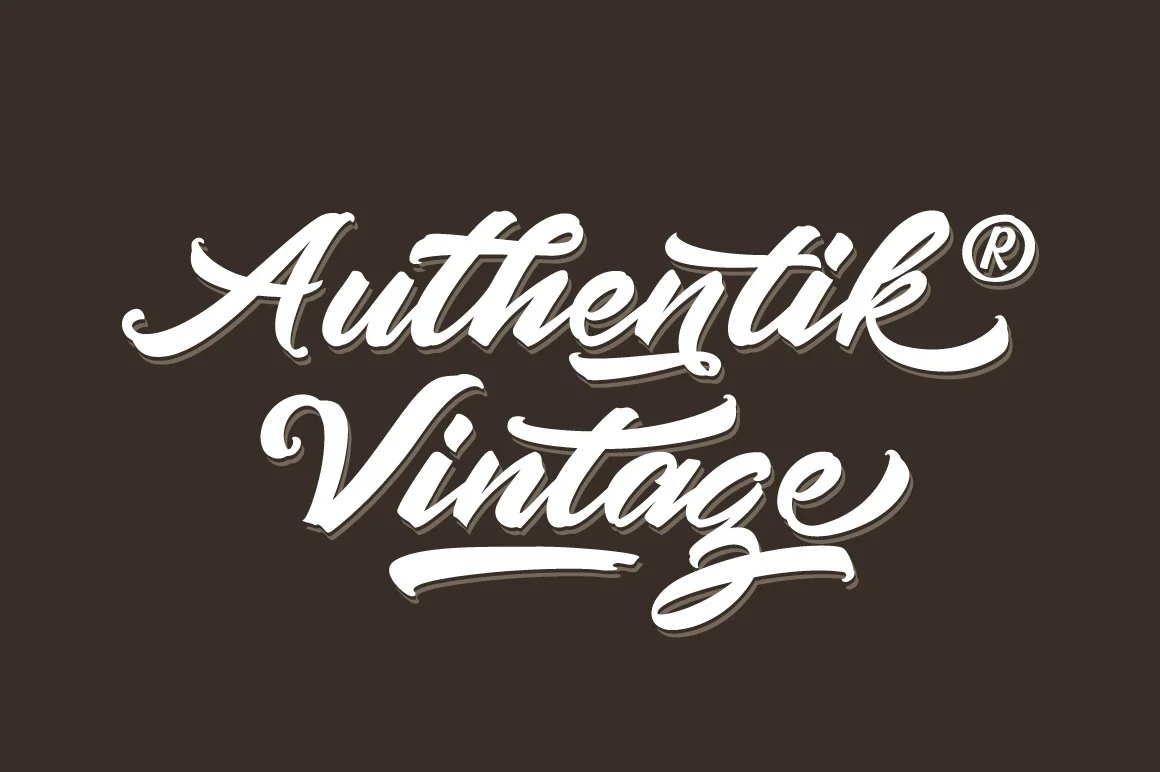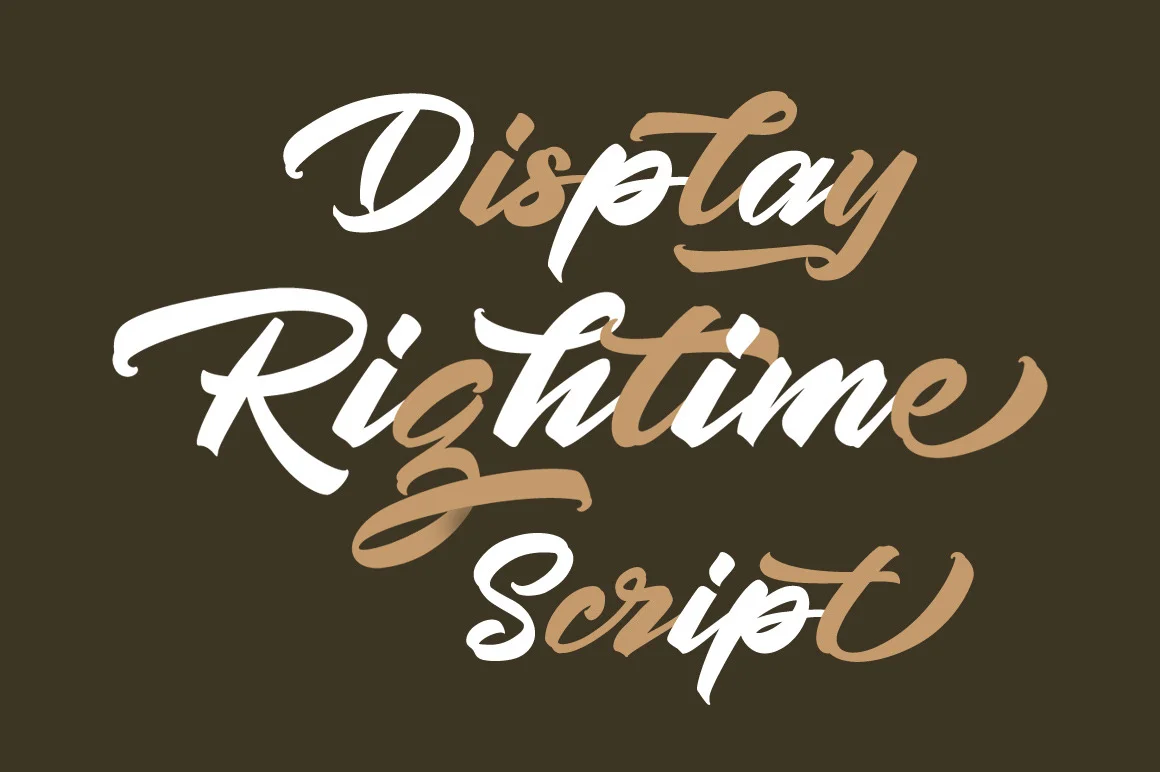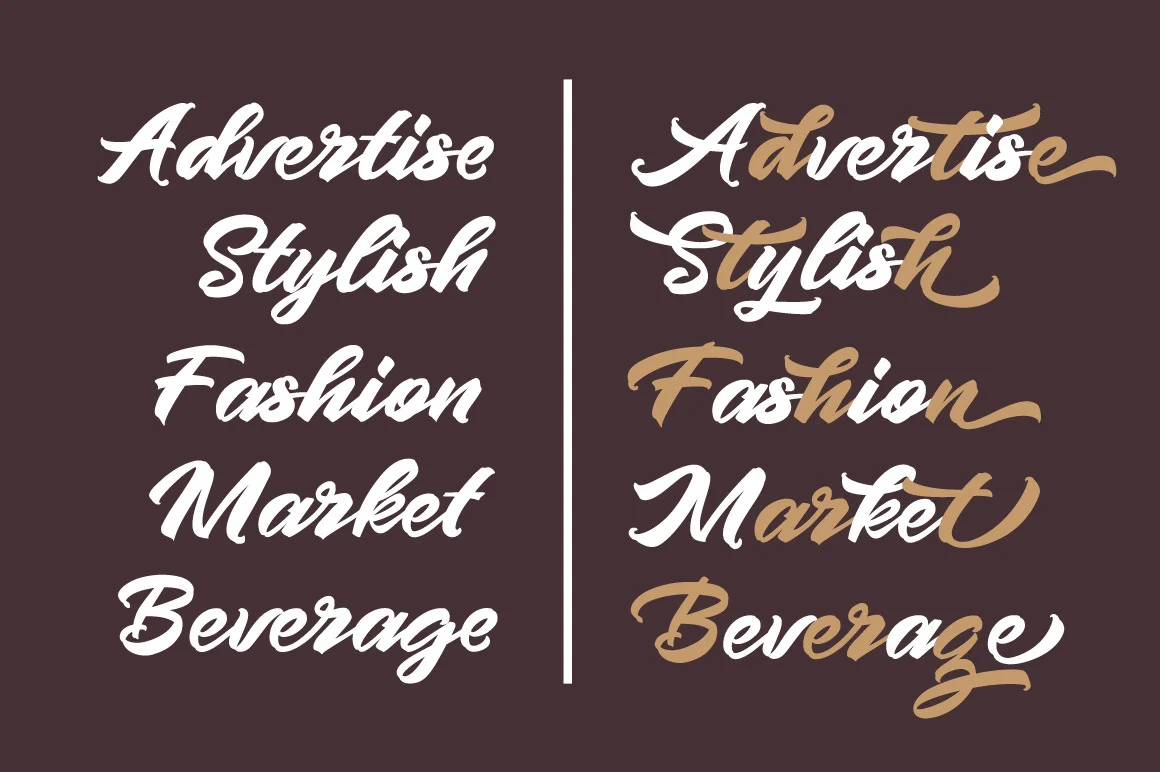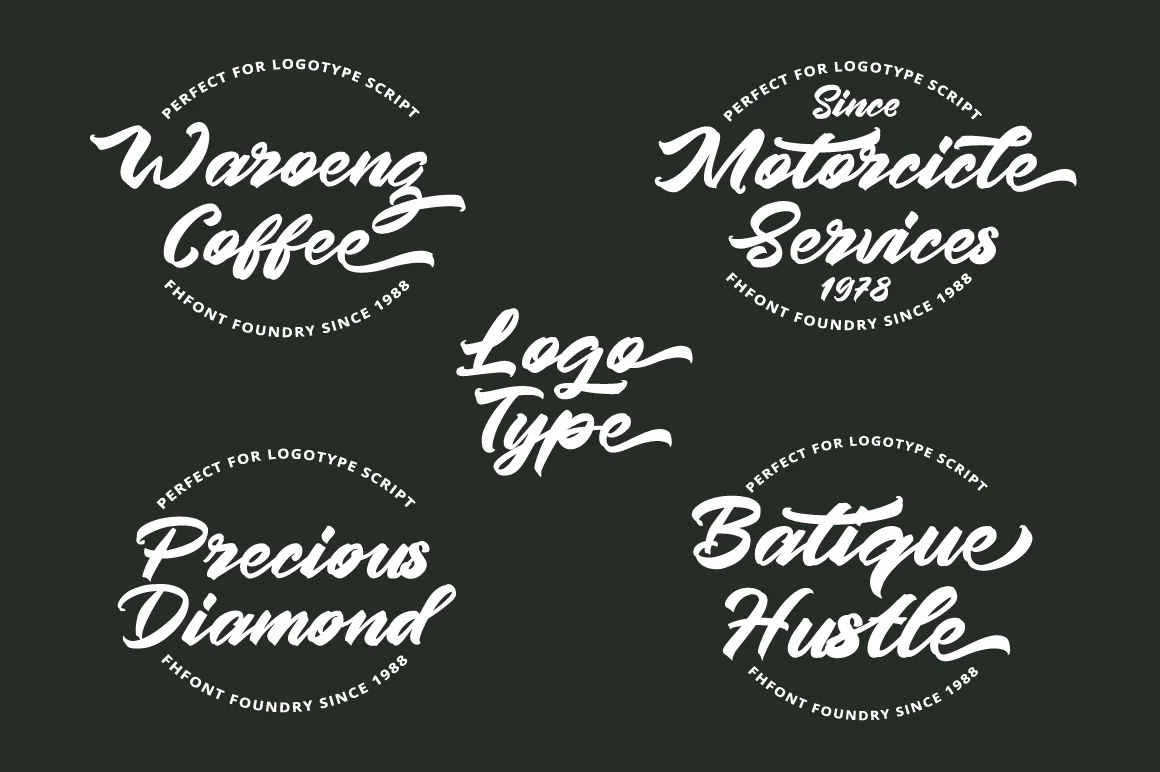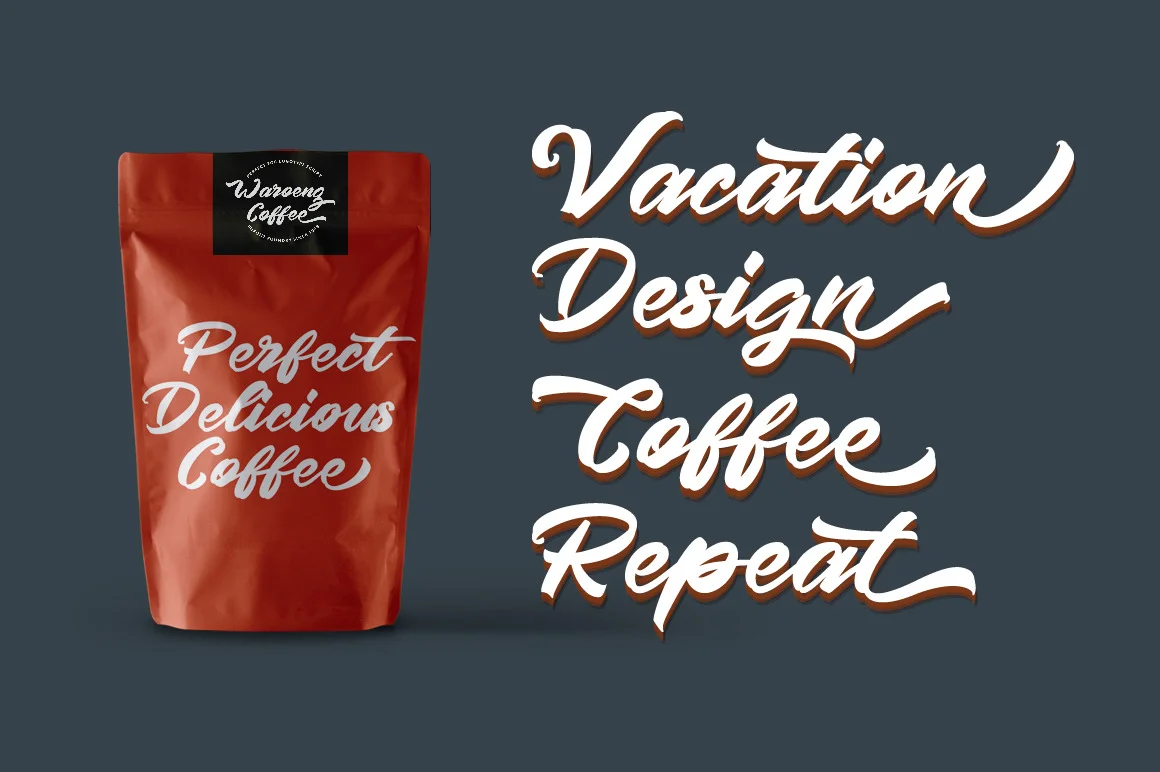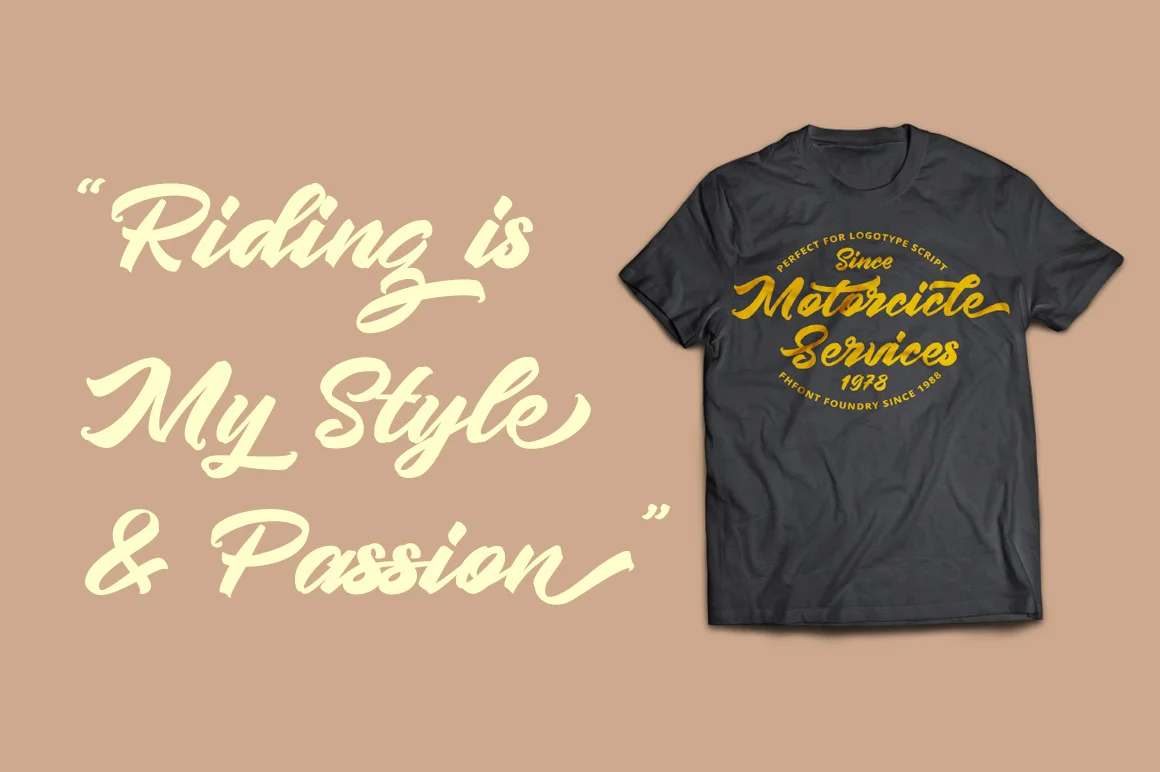
Pintenium Script Font
A good typeface communicates tone before a single word is read. Pintenium Script achieves this through visual harmony and precise spacing. The typeface brings an elegant, calligraphic sensibility to a broad range of creative disciplines, with controlled contrast that rewards close inspection that holds up whether the work is print-first or screen-first.
In practice, Pintenium Script proves particularly effective for fragrance labels, fashion editorials, advertising campaigns, annual reports, event signage. Designers reaching for it find that the type decisions feel resolved rather than laboured — a useful quality when client timelines are tight.
The range of applications extends to web design, brand identity systems, luxury stationery, product labels. That breadth is deliberate: the proportions and spacing were stress-tested across a wide range of mock briefs before the typeface was finalised.
Pairing Pintenium Script with a contrasting serif or a neutral grotesque gives mixed-format layouts a clear visual grammar without requiring constant size adjustments to establish hierarchy.
UX designers establishing typographic systems for digital products find Pintenium Script a reliable choice for projects that demand both personality and restraint. The design avoids the self-conscious quirkiness that dates quickly, settling instead for considered distinctiveness that holds up over time.